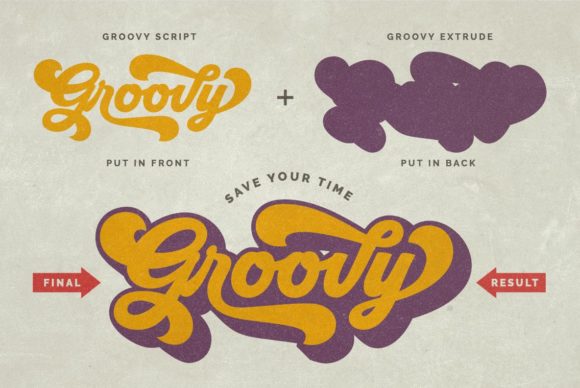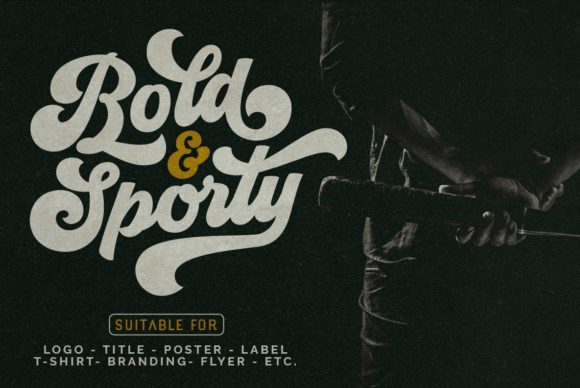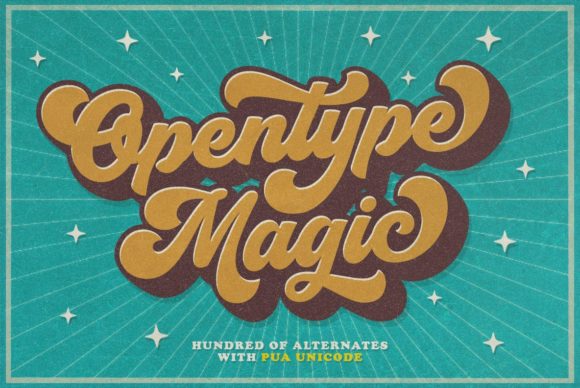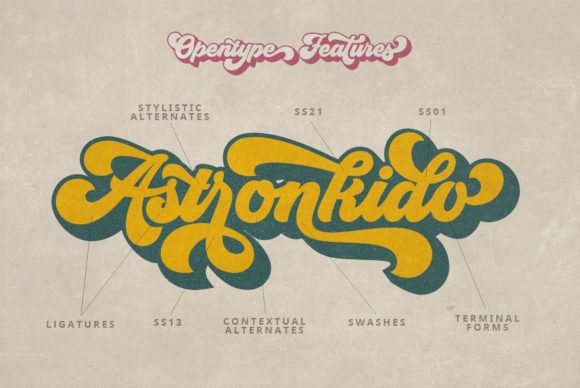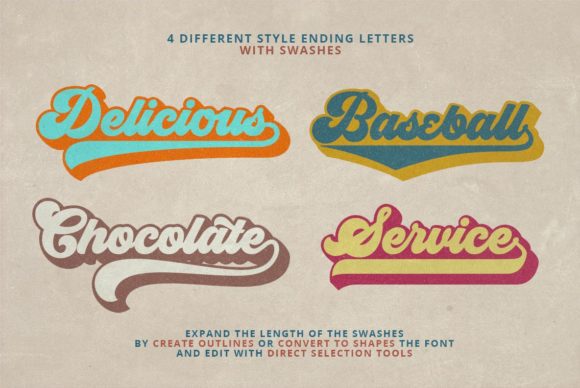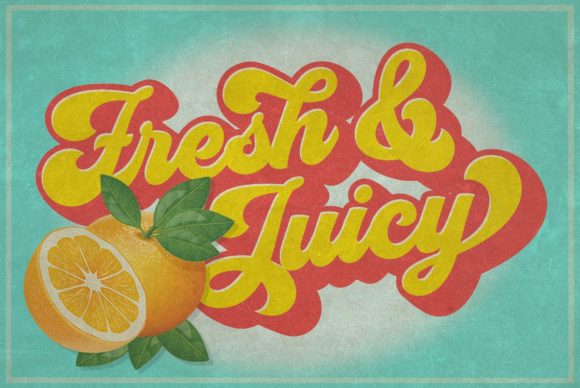
The Groovy Font: A Retro Revival for Your Designs
Ah, the elusive perfect font. I recall working on a project, pouring my heart and soul into it, but stuck on one thing: the right typography. My client wanted something that screamed retro chic, but I was coming up blank. That’s when I stumbled upon the Groovy font, inspired by the iconic ads of the late 60’s and 70’s. It was love at first sight! ✨
- 💥 Groovy’s got that authentic retro vibe that’s perfect for any design that needs a blast from the past.
- ✨ The script is gorgeous, with flowing connections and beautiful letterforms.
- ✅ It’s surprisingly versatile, working well for both headings and body text.
- 🔥 The font’s OpenType features are top-notch, offering a range of stylistic alternates and glyphs to really make your text pop.
While Groovy is an amazing font, it’s not without its quirks. 🤔 For example:
- ⚠️ Some of the more intricate glyphs can get a bit messy at smaller font sizes.
- 😐 It might not be the best fit for very formal or corporate designs, as it’s inherently playful and attention-grabbing.
Groovy’s creator was inspired by the iconic advertisements of the late 1960s and 1970s. Think vintage posters, funky typography, and a general sense of playfulness and experimentation. The goal was to capture the essence of that era’s design spirit and bring it into the modern age.
Q: What makes Groovy so special?
A: Groovy’s unique blend of retro flair and modern sophistication makes it a standout font. Its OpenType features and range of stylistic alternates also make it incredibly versatile.
Q: Is Groovy suitable for body text?
A: While Groovy is primarily designed for headings and display text, it can work well for body text in certain contexts. However, keep in mind that it’s a script font, and readability may vary depending on the font size and design.